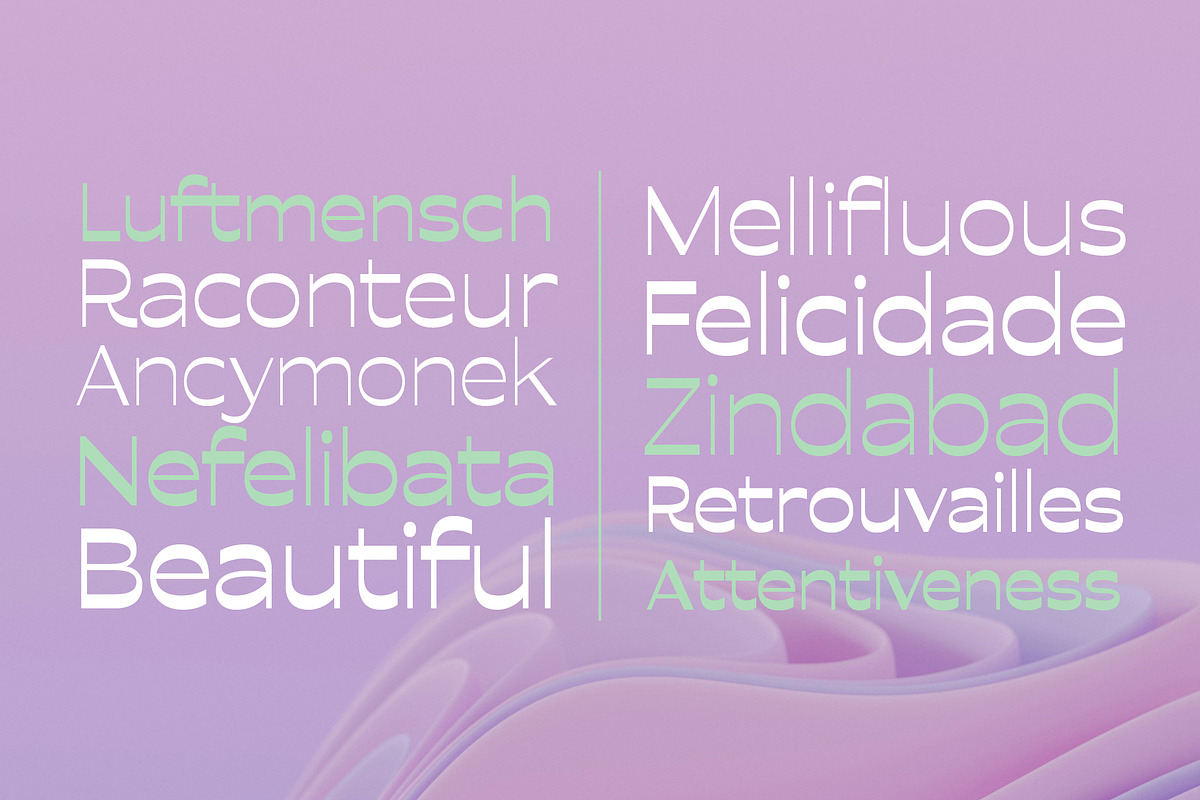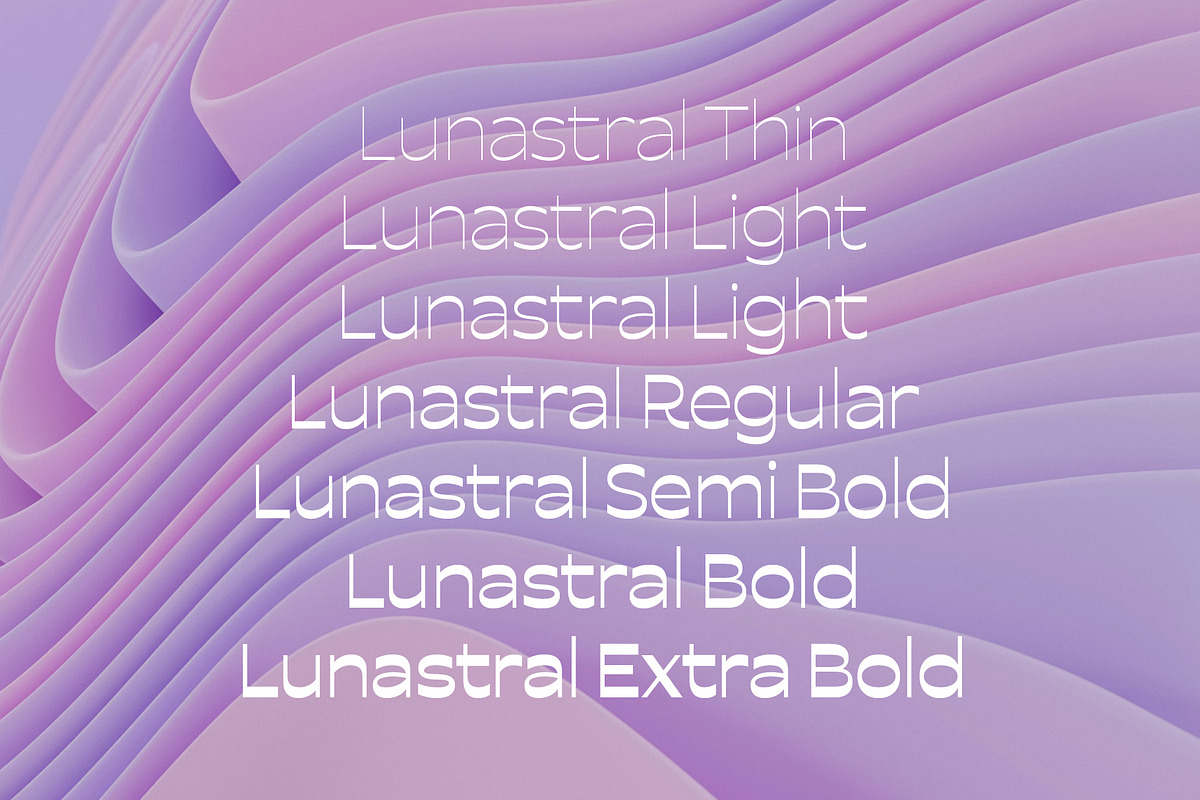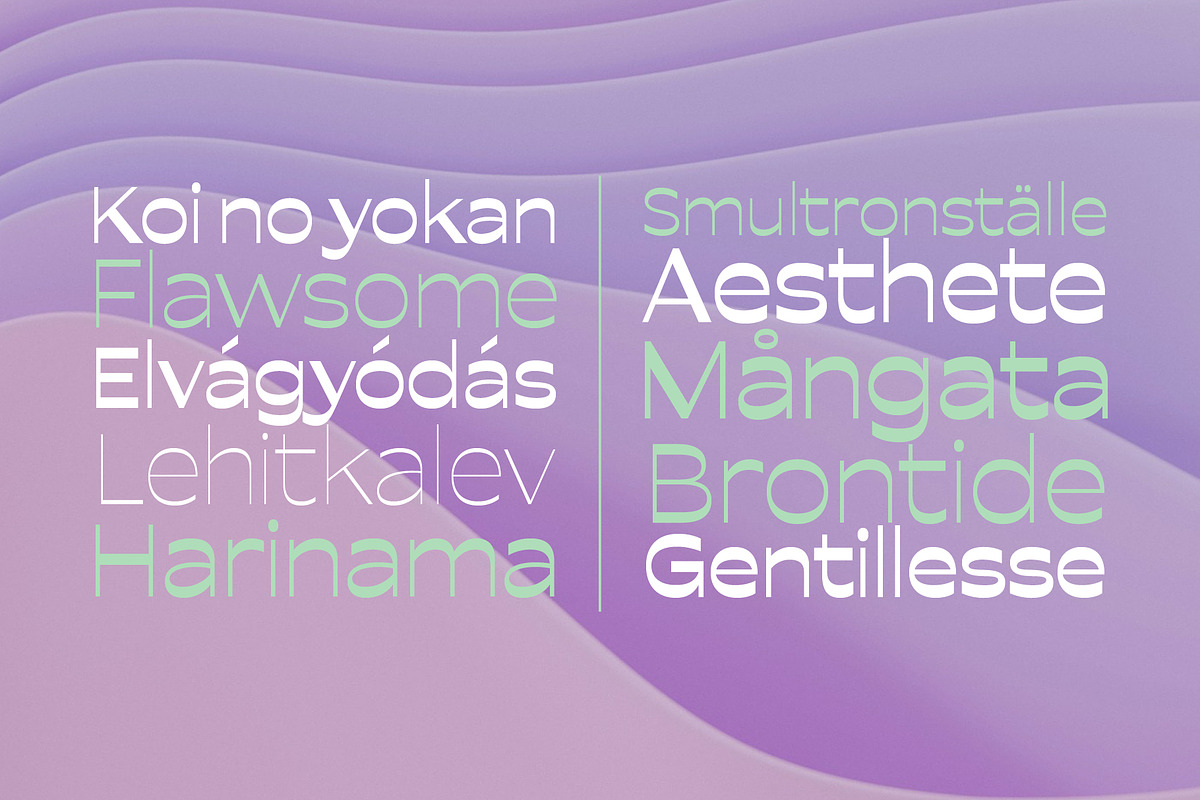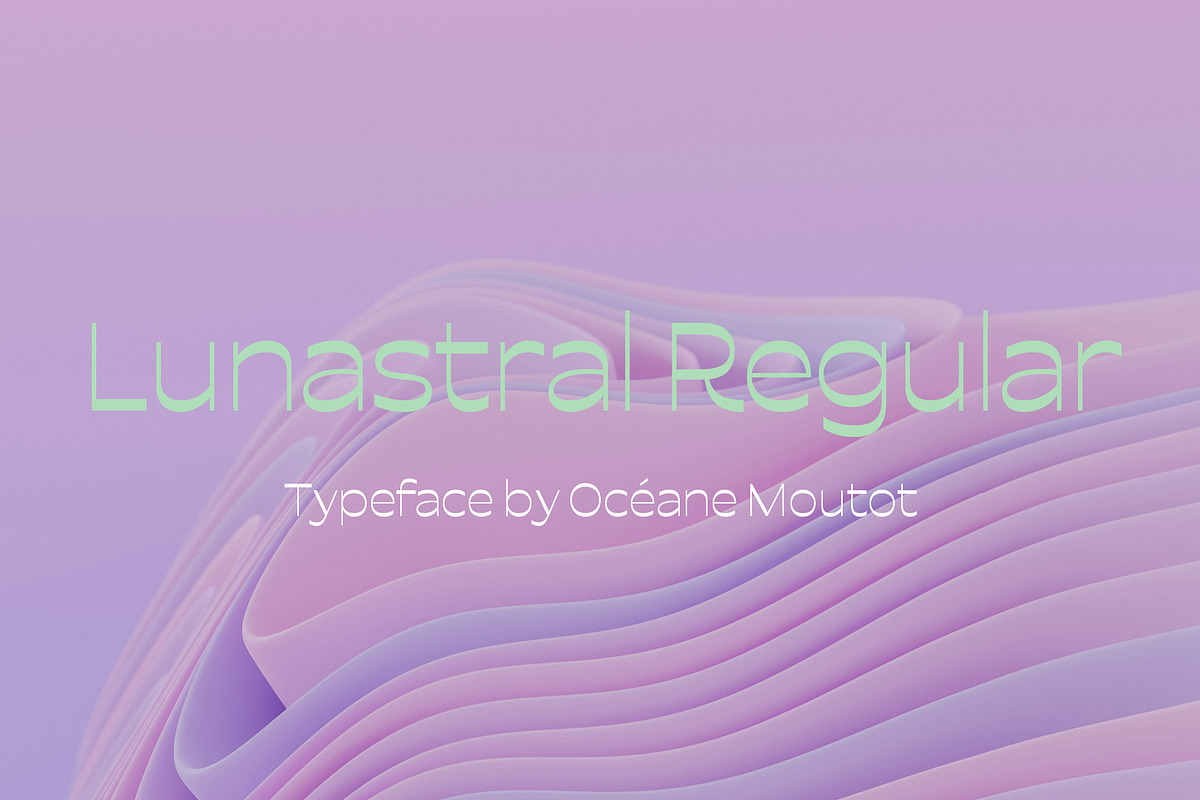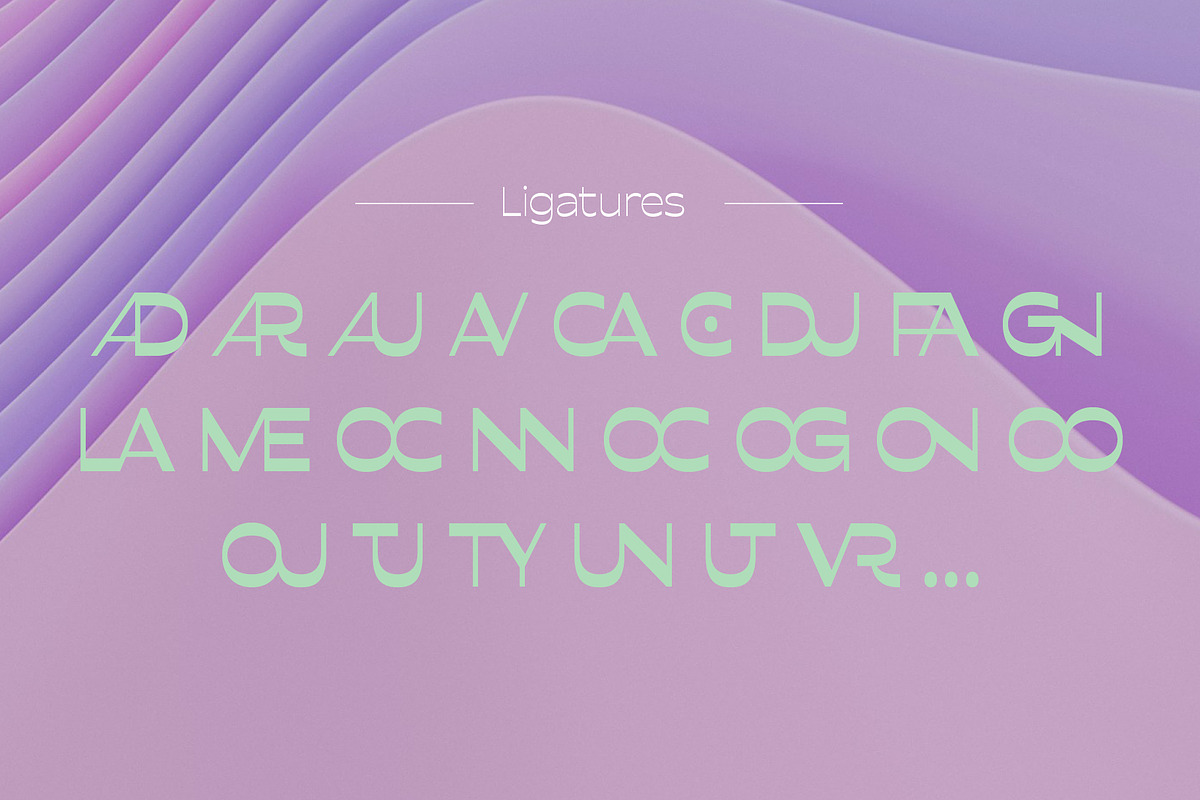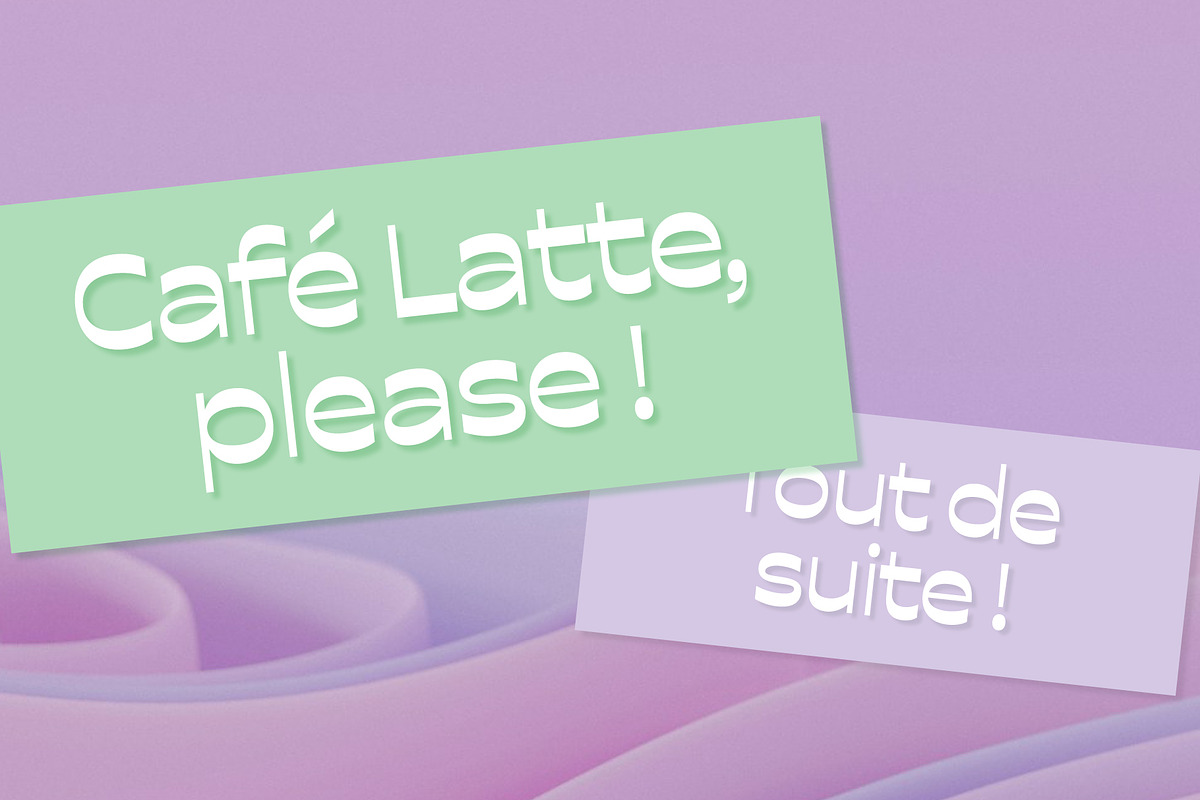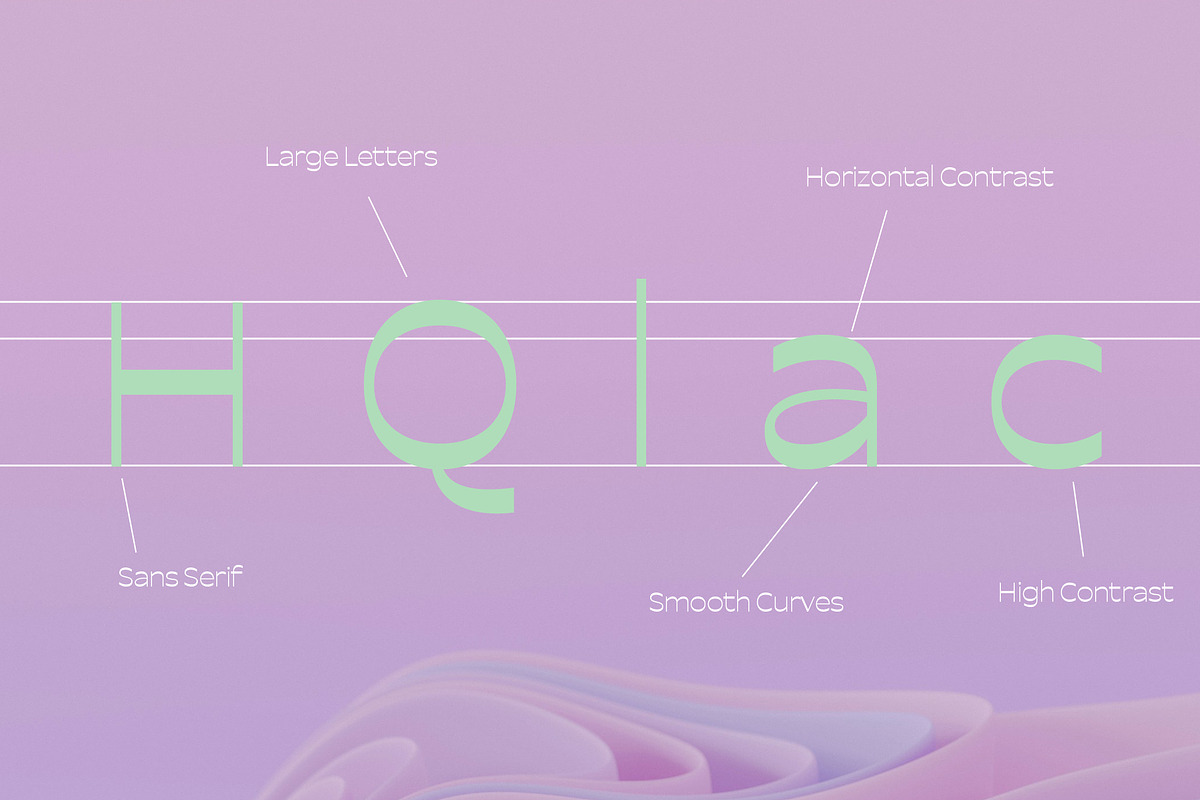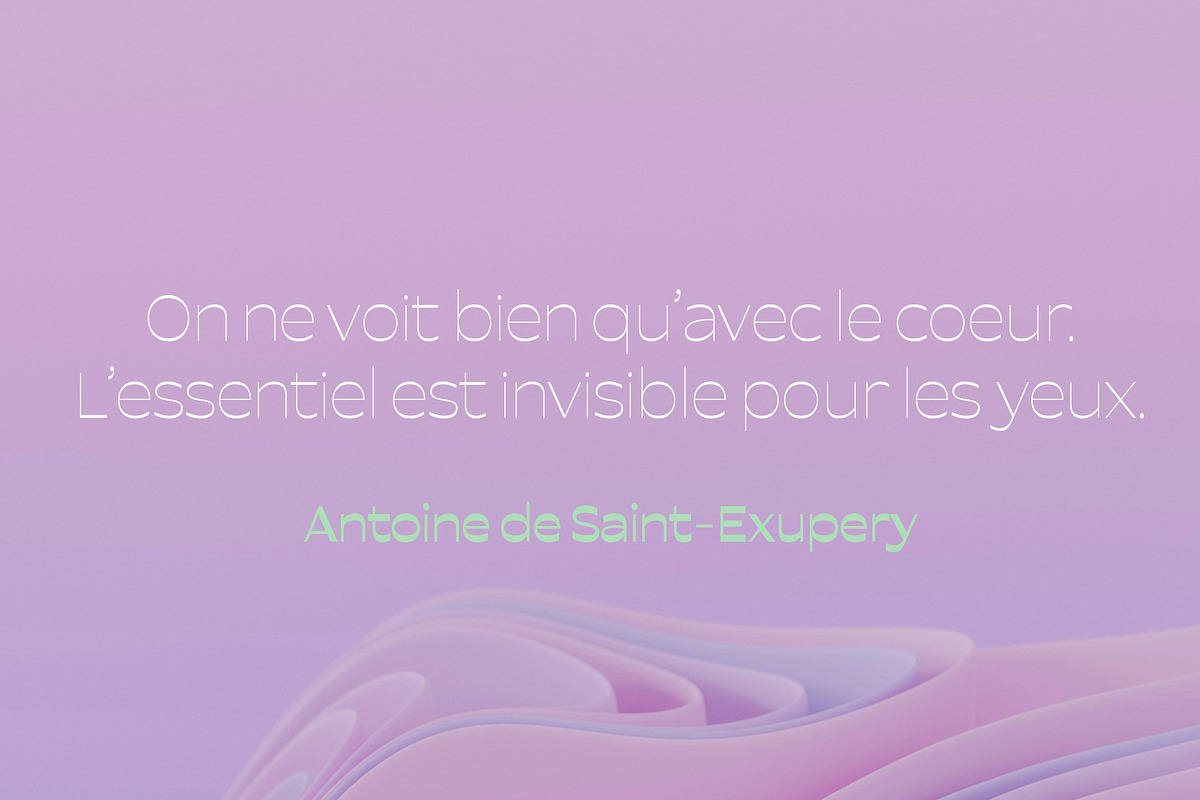
Lunastral Regular
Lunastral is a whimsically bold typeface that captivates with its horizontal contrast, sans serif structure, and delightful curves. Its large weight commands attention while its smooth curves infuse a sense of playfulness into every character.
With its high contrast between thick and thin strokes, Lunastral brings a dynamic energy to any design it graces. Whether it's adorning the titles of magazines, newspapers, or creating captivating logotypes, Lunastral offers versatility and style.
Lunastral is available in 7 styles, from thin to extra black.